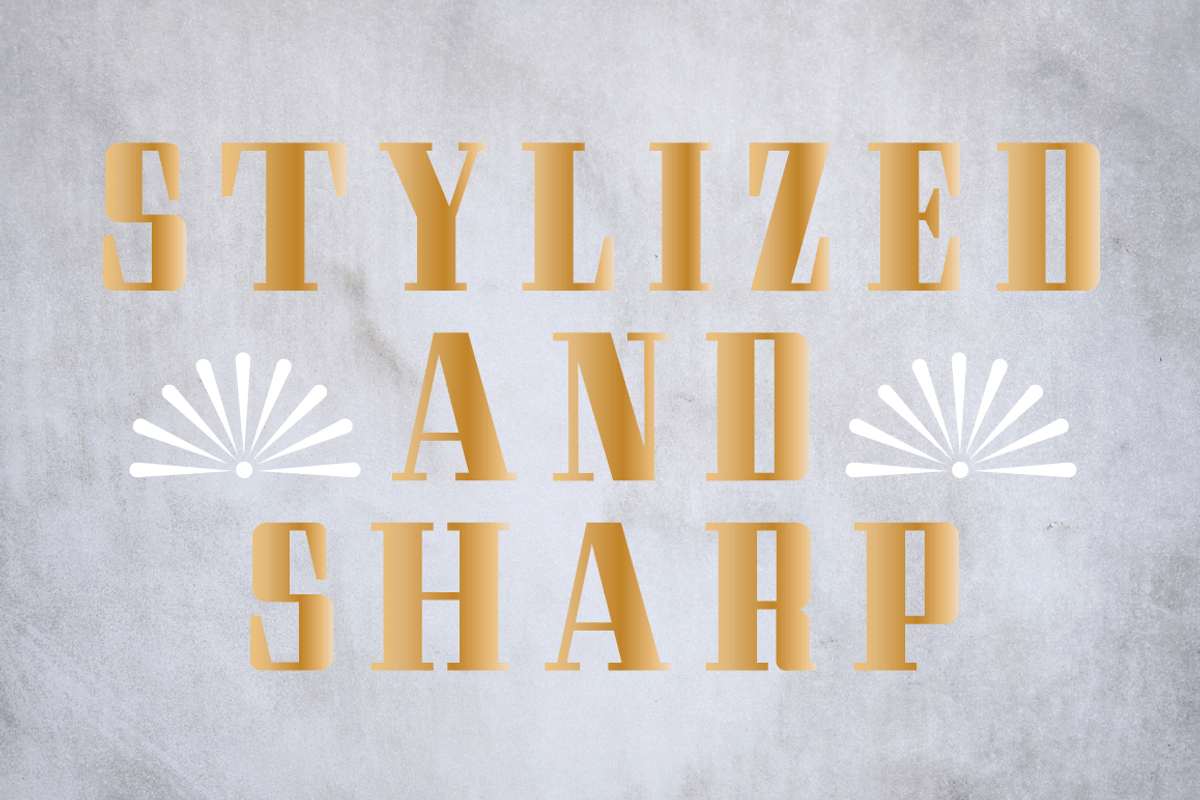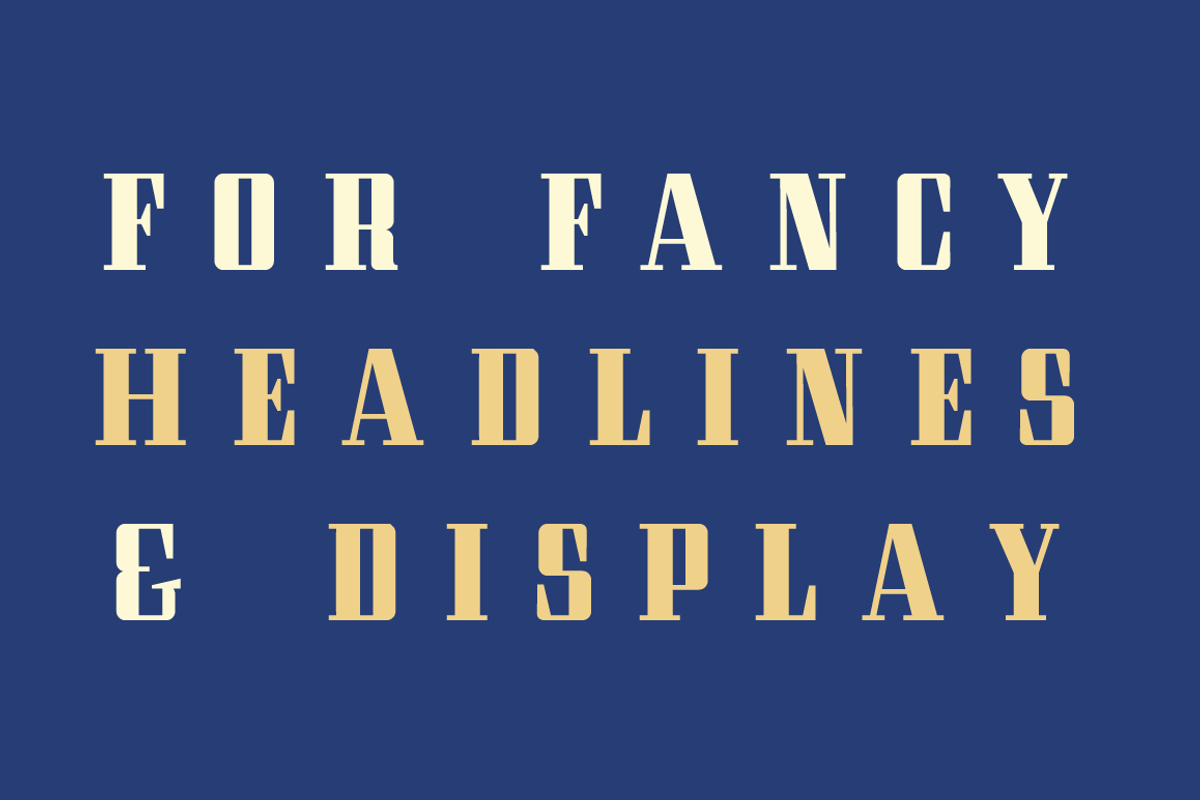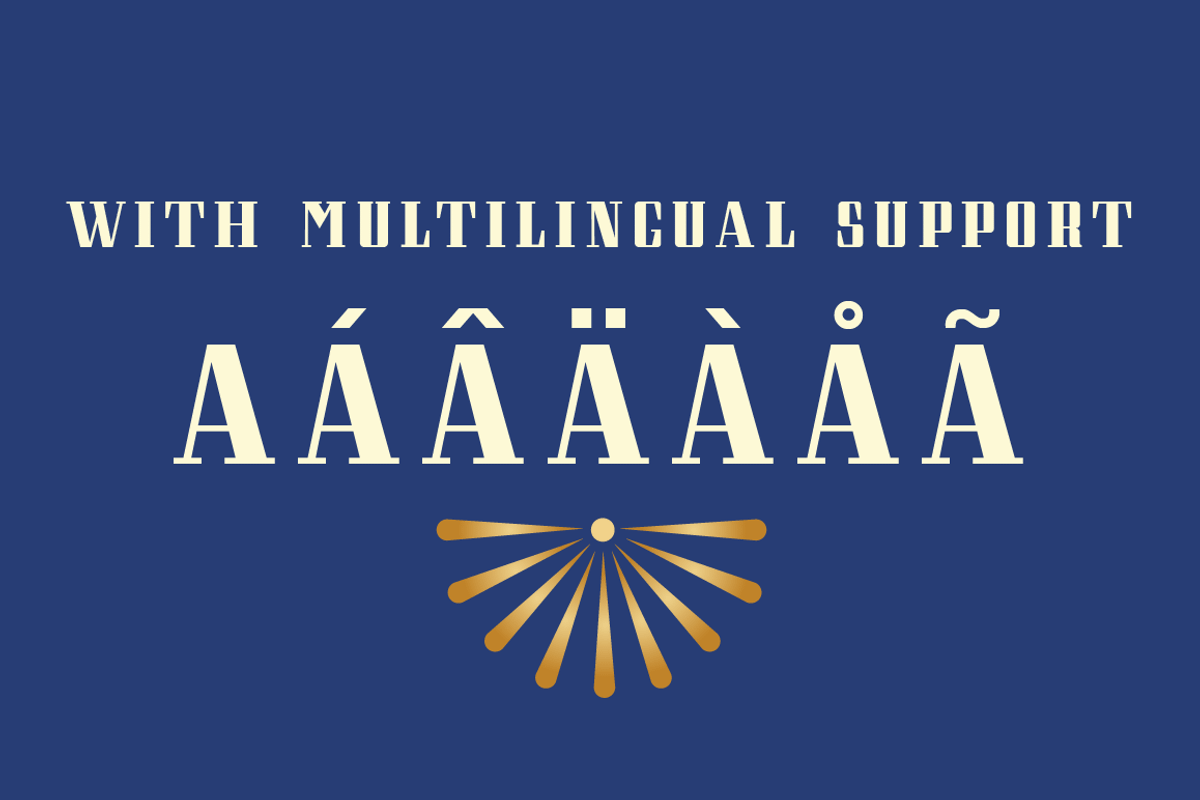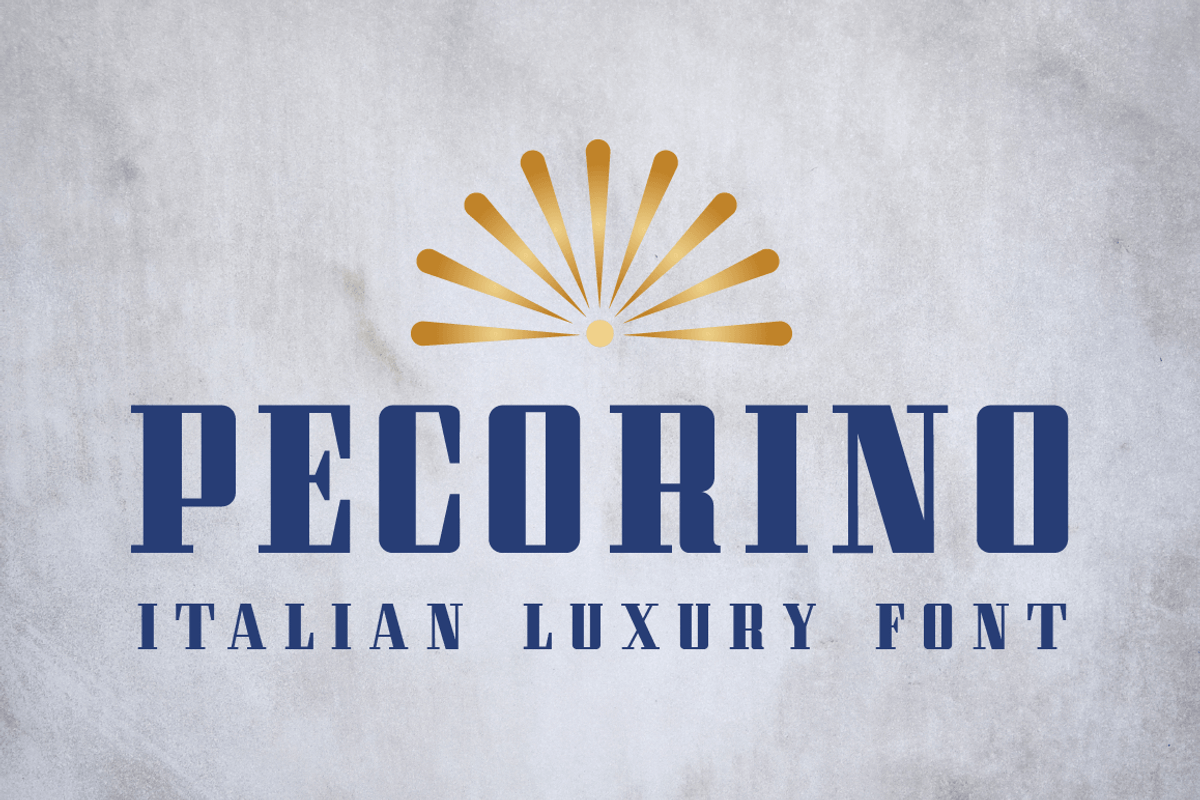
Pecorino Font
Pecorino is an elegant modular font based on Italian street signs.
Pecorino Font by hudlow fits naturally into Branding, posters, packaging, typography.